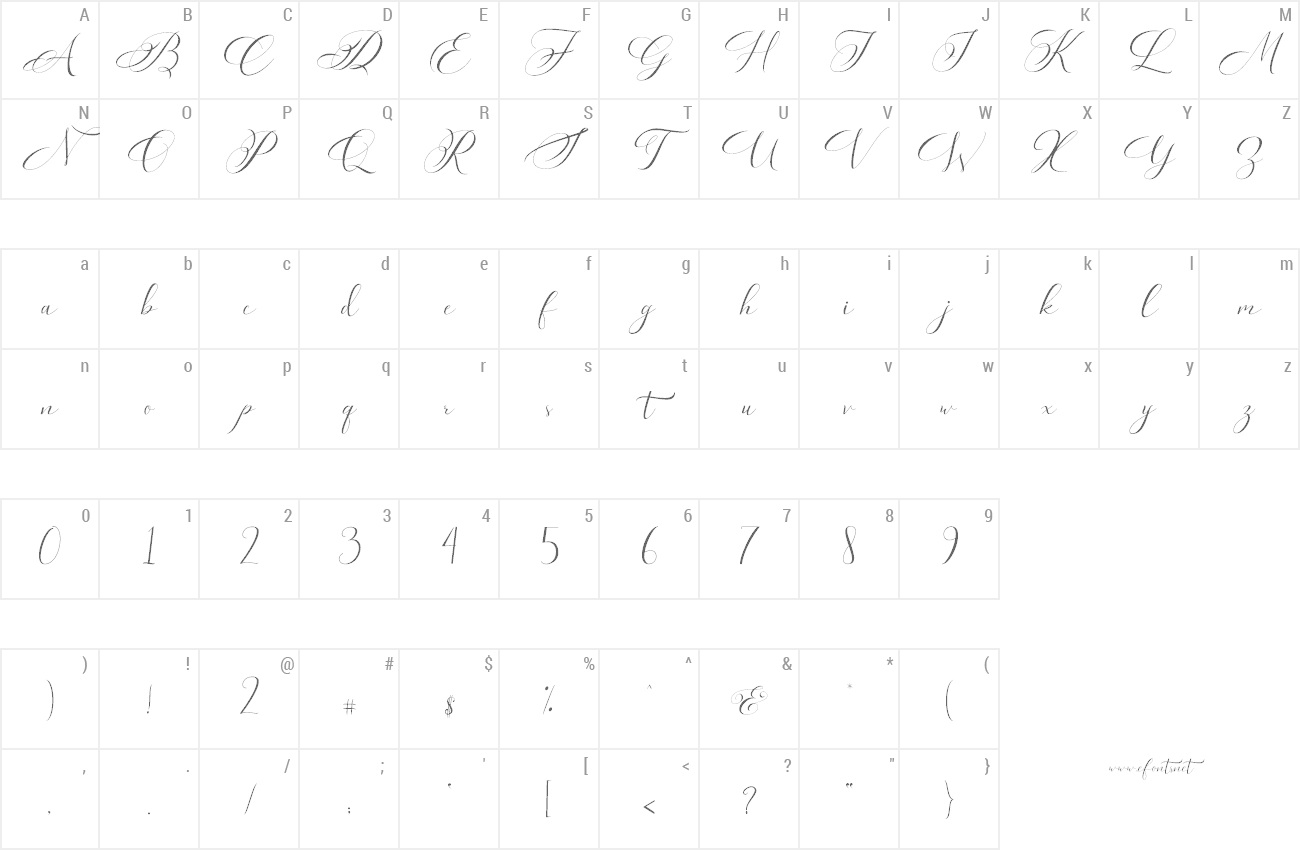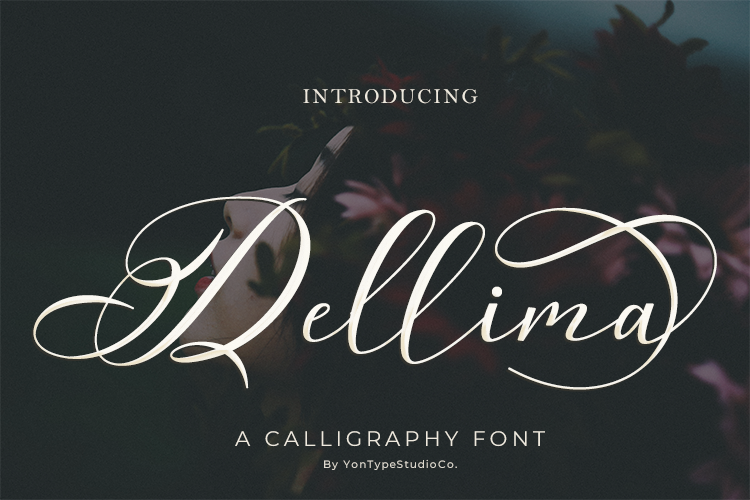
Introducing Dellima's new modern calligraphy font. This beautiful script is for those who need some elegance and style for their designs and is perfect for wedding invitations, date cards and feminine branding. Dellima includes a full set of Basic Characters, Numbers, and Uppercase Punctuation. Also contains binders and many stylistic alternatives to perfectly recreate natural calligraphy (check the preview to see all of them). ENGLISH 1. This Font License is (PERSONAL USE ONLY) Which means you can only use this font for personal purposes that are not commercial (published) Be it To Generate Profits / Profits, Both Material And Non-Material. 2. (PROHIBITED HARD) (DUPLICATING) and Distributing and Using This Font For Commercial Purposes. Be it for Advertising, TV, Film, Video, Motion Graphic, YouTube, or for LOGO & Product Packaging (PHYSICAL OR NON-PHYSICAL (DIGITAL) 3. DOUBLE (PLAGIATE / COPY PASTE) and DISTRIBUTE / USE THESE Fonts For Commercial Use Whatever type and shape, NO LICENSES or WITHOUT BUYING LICENSE OF MY FIRST LETS FROM ME as CREATOR or HOLDER OF FONT COPYRIGHT, Will Be Used for Extended License Fees with a PRICE 100 times the Price of a STANDARD License, For LICENSE INFORMATION what you will need, please contact me at: Email: (yontypestudioco@gmail.com) this my shop https://www.creativefabrica.com/product/dellima-3/ref/235915/ More... |